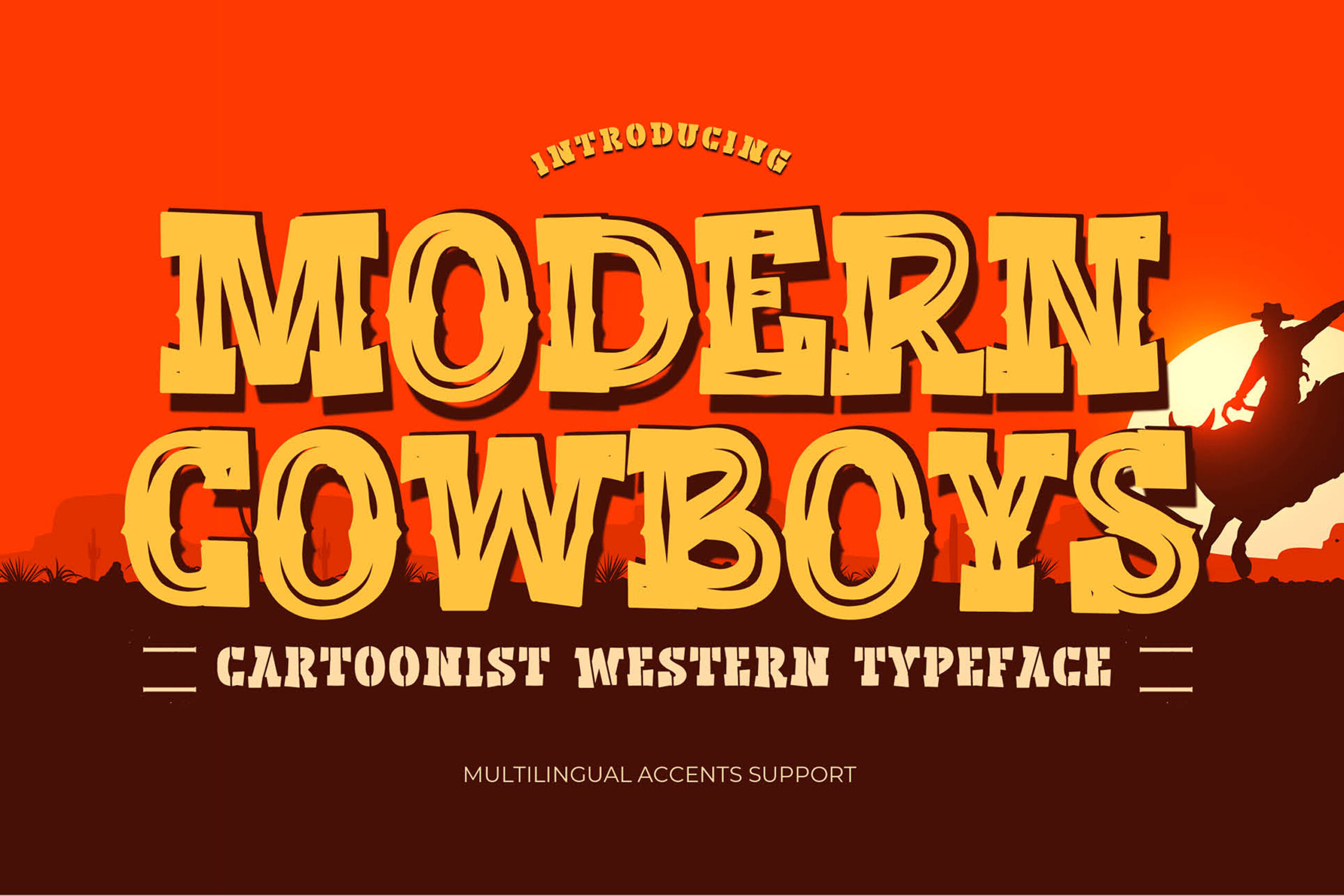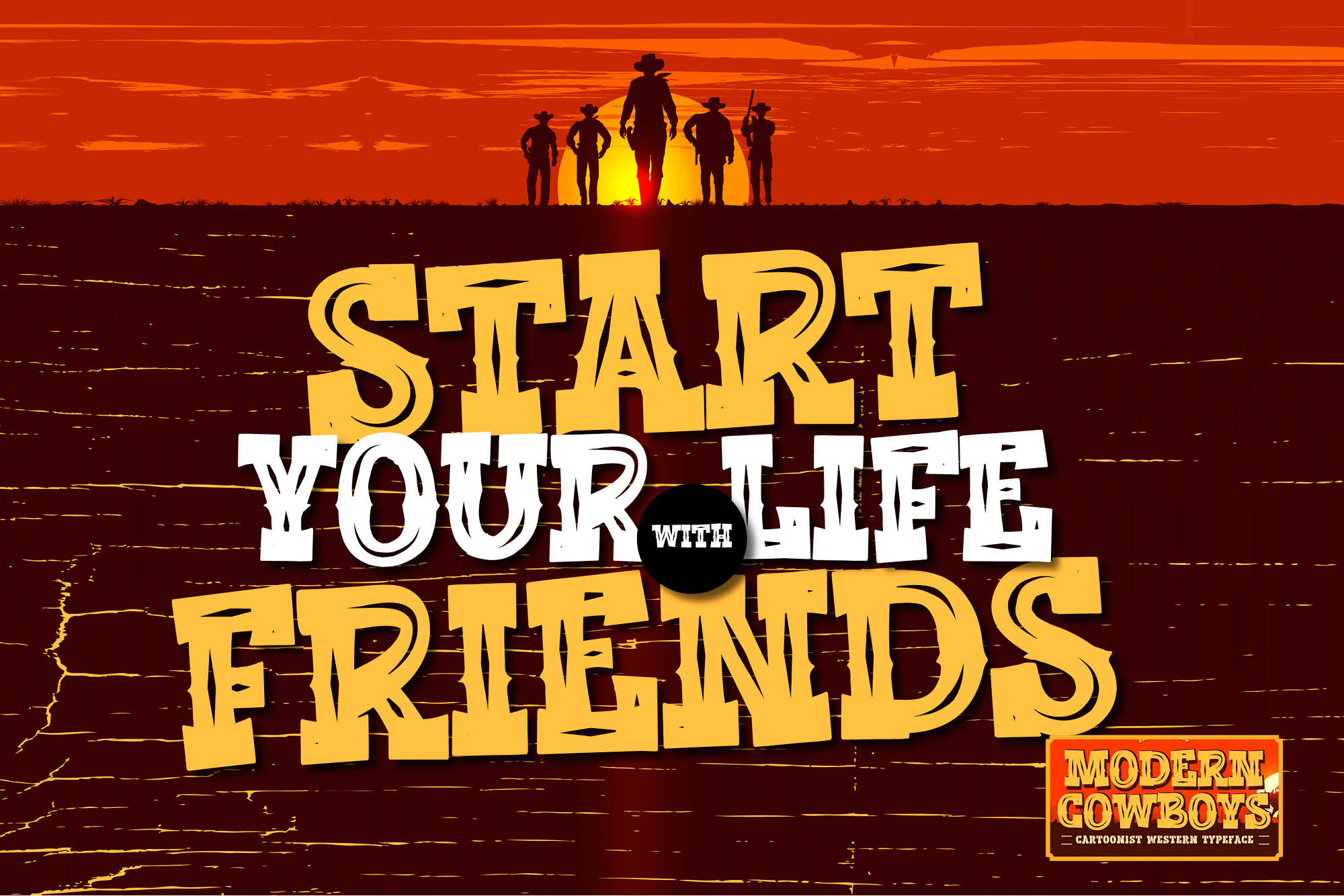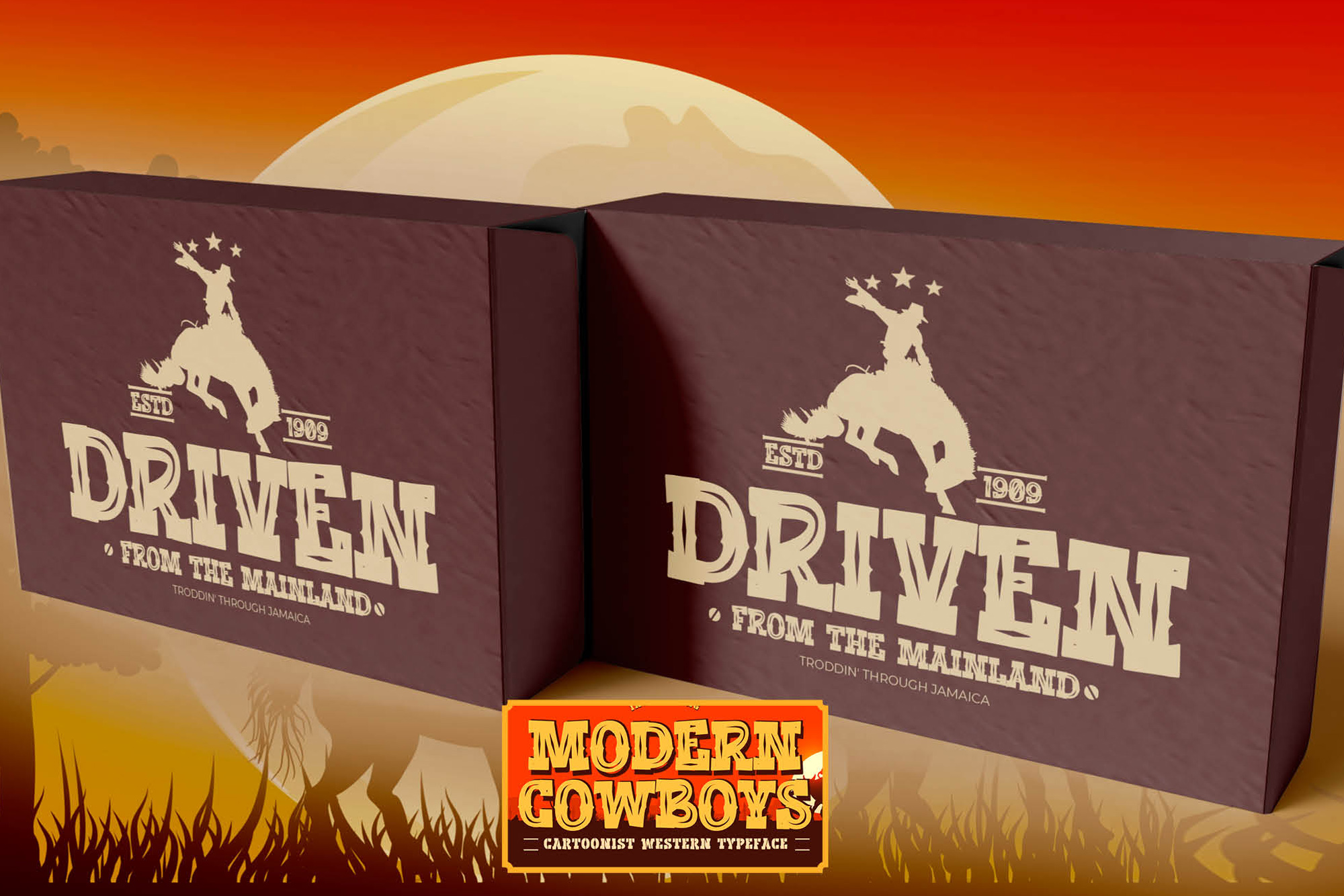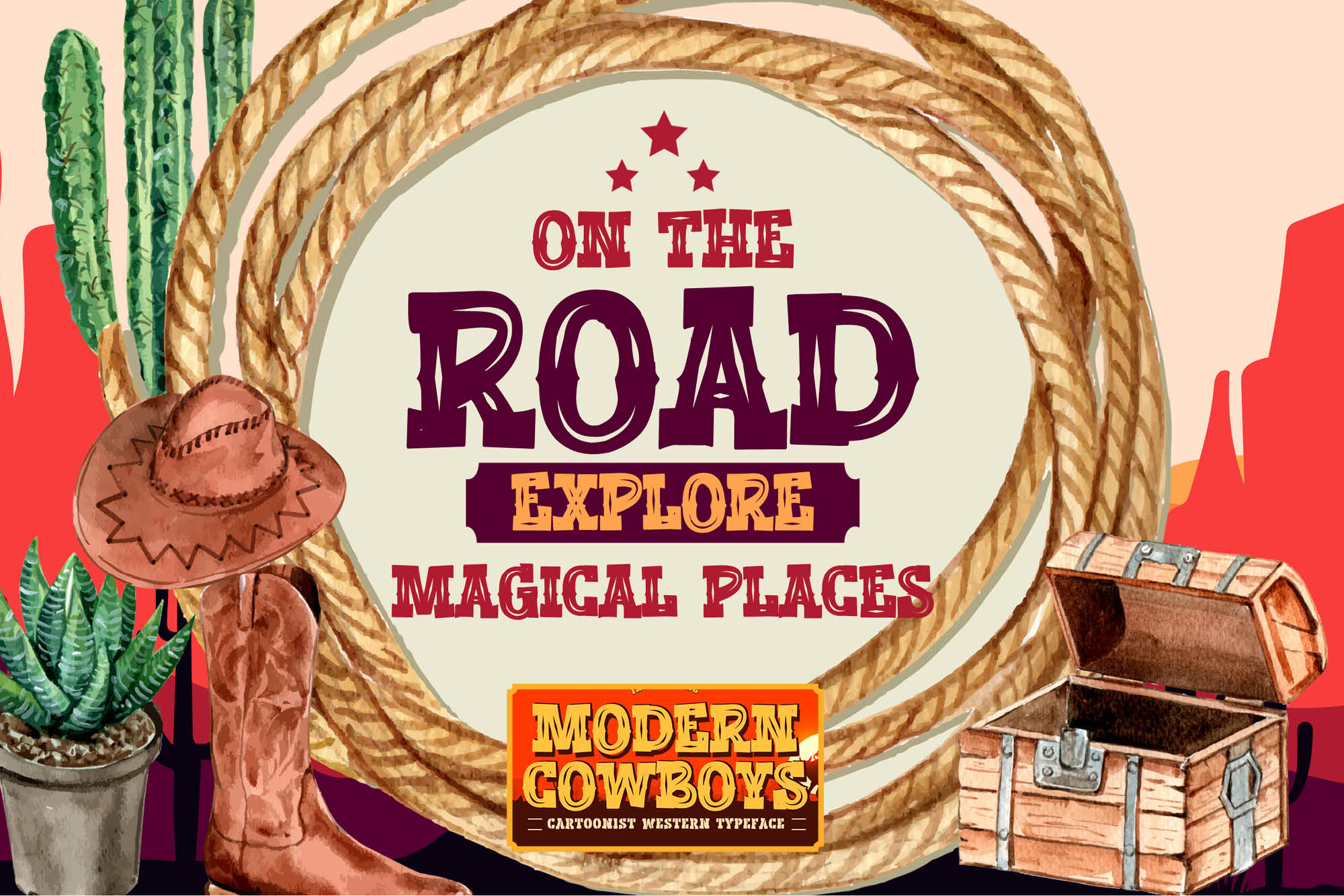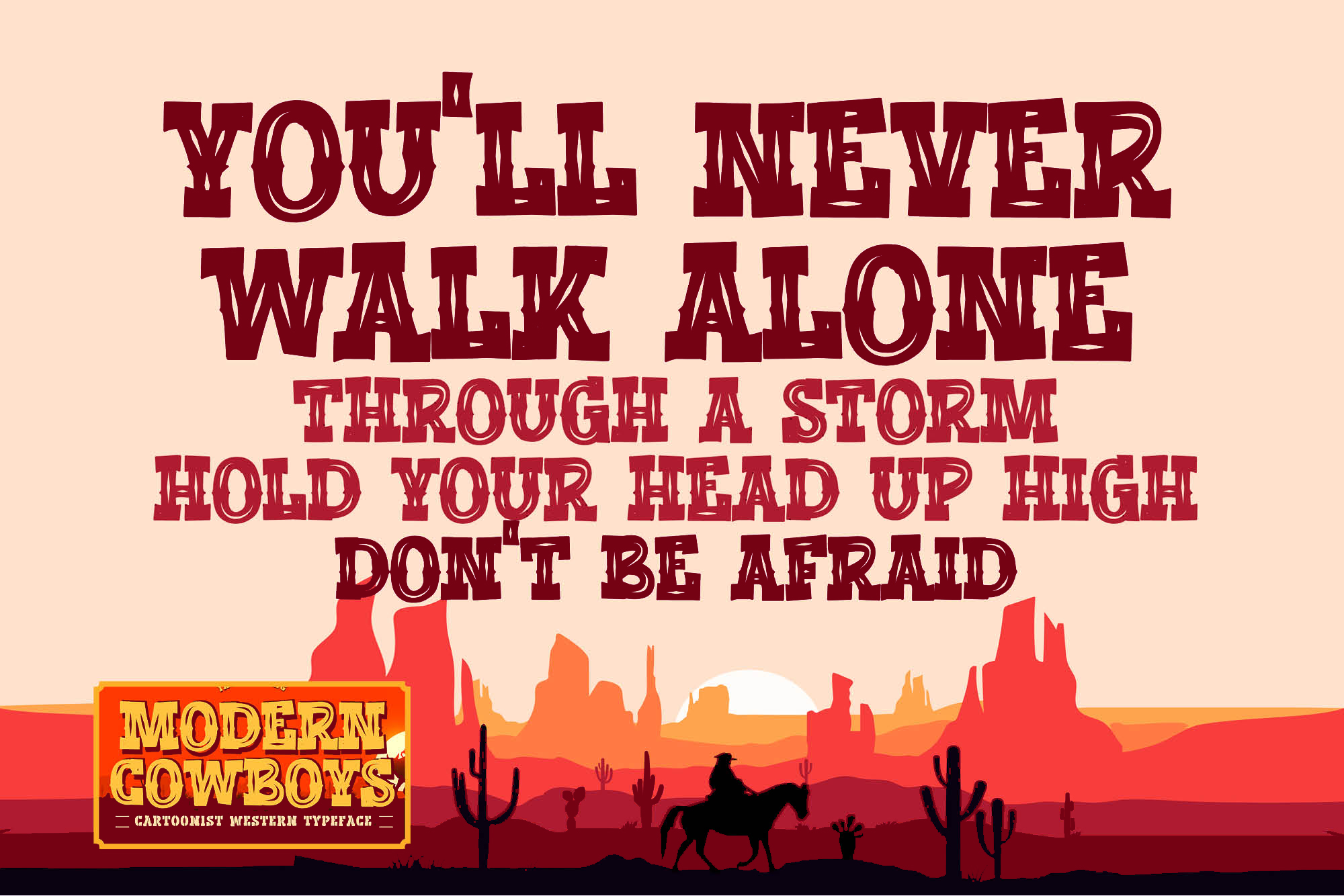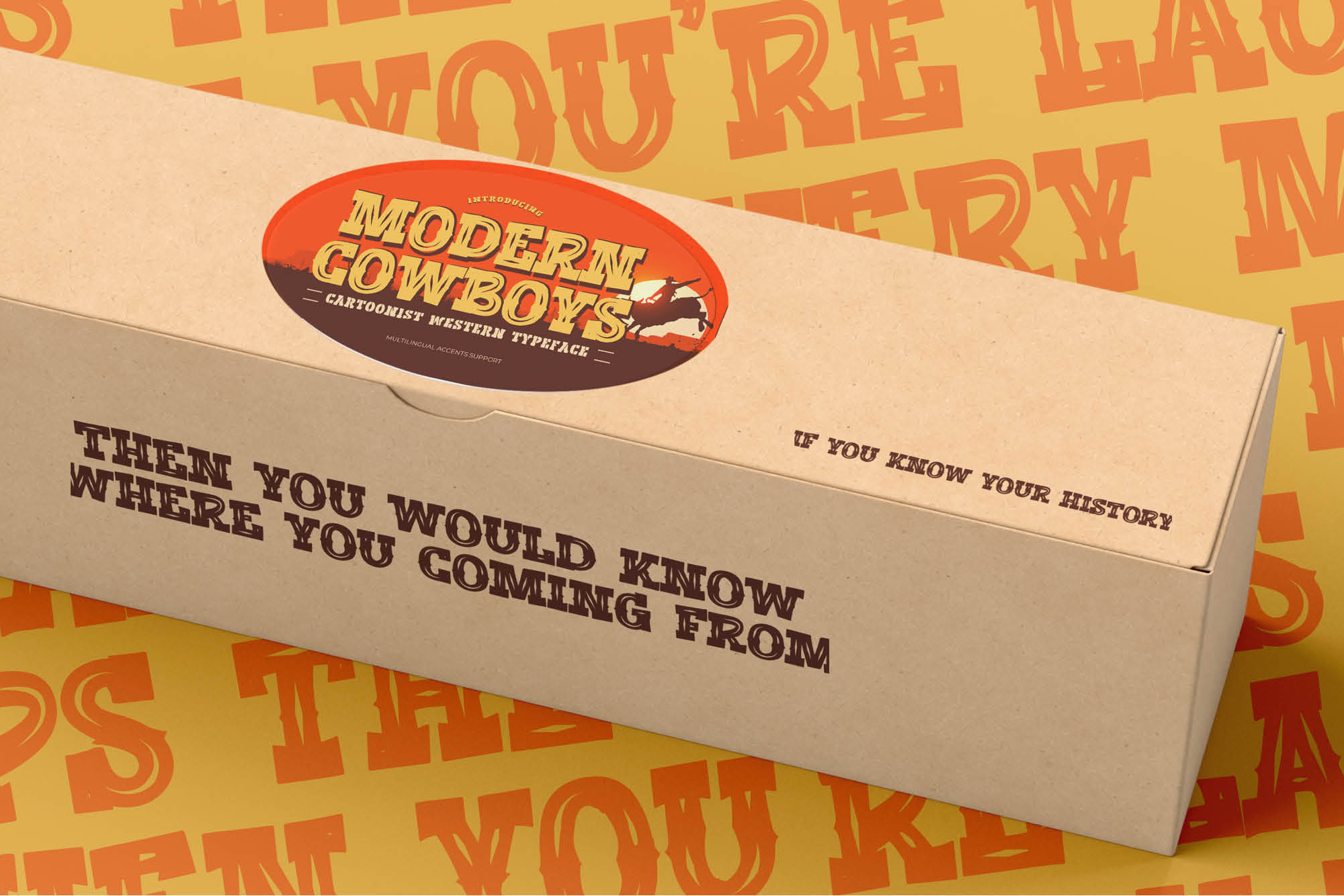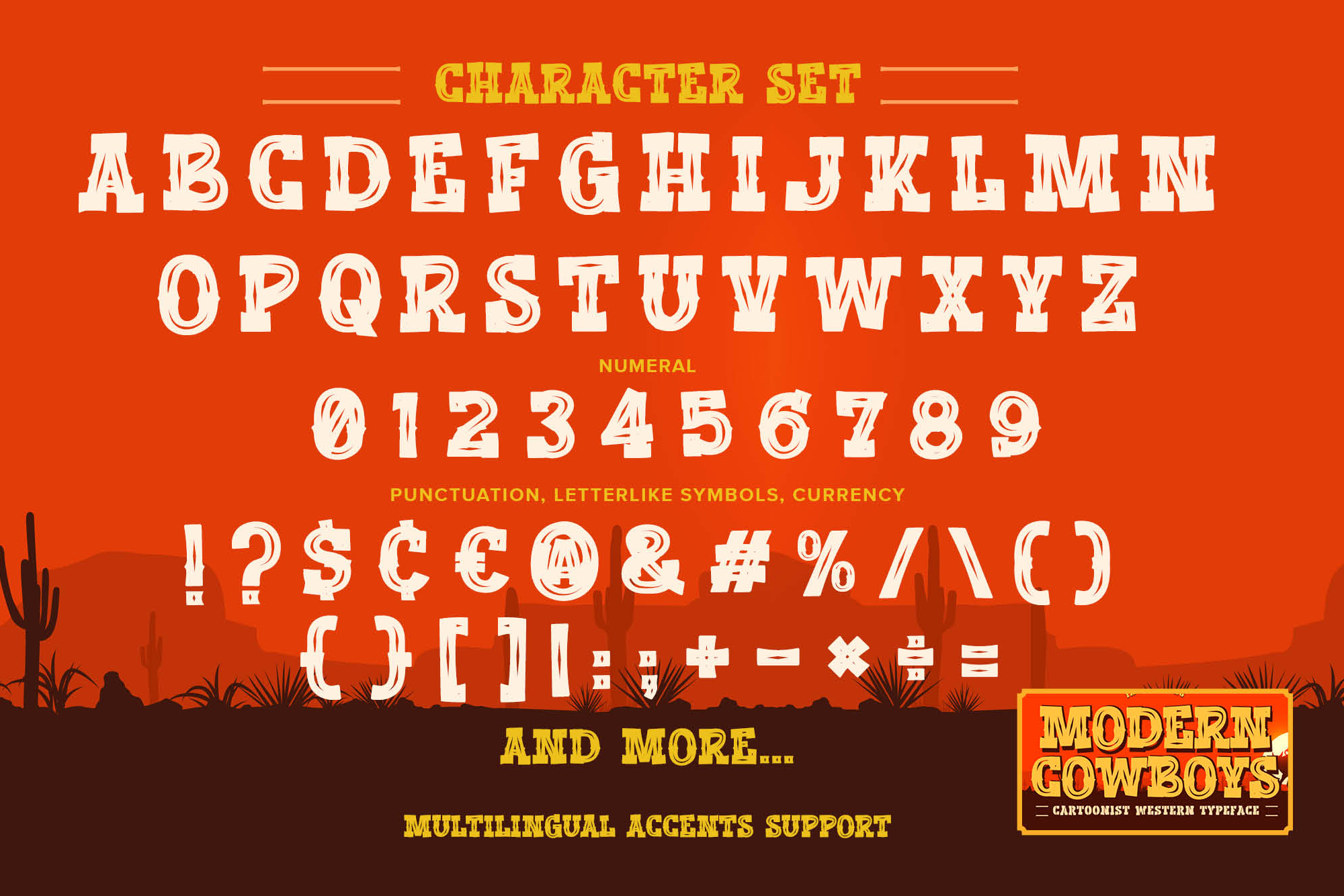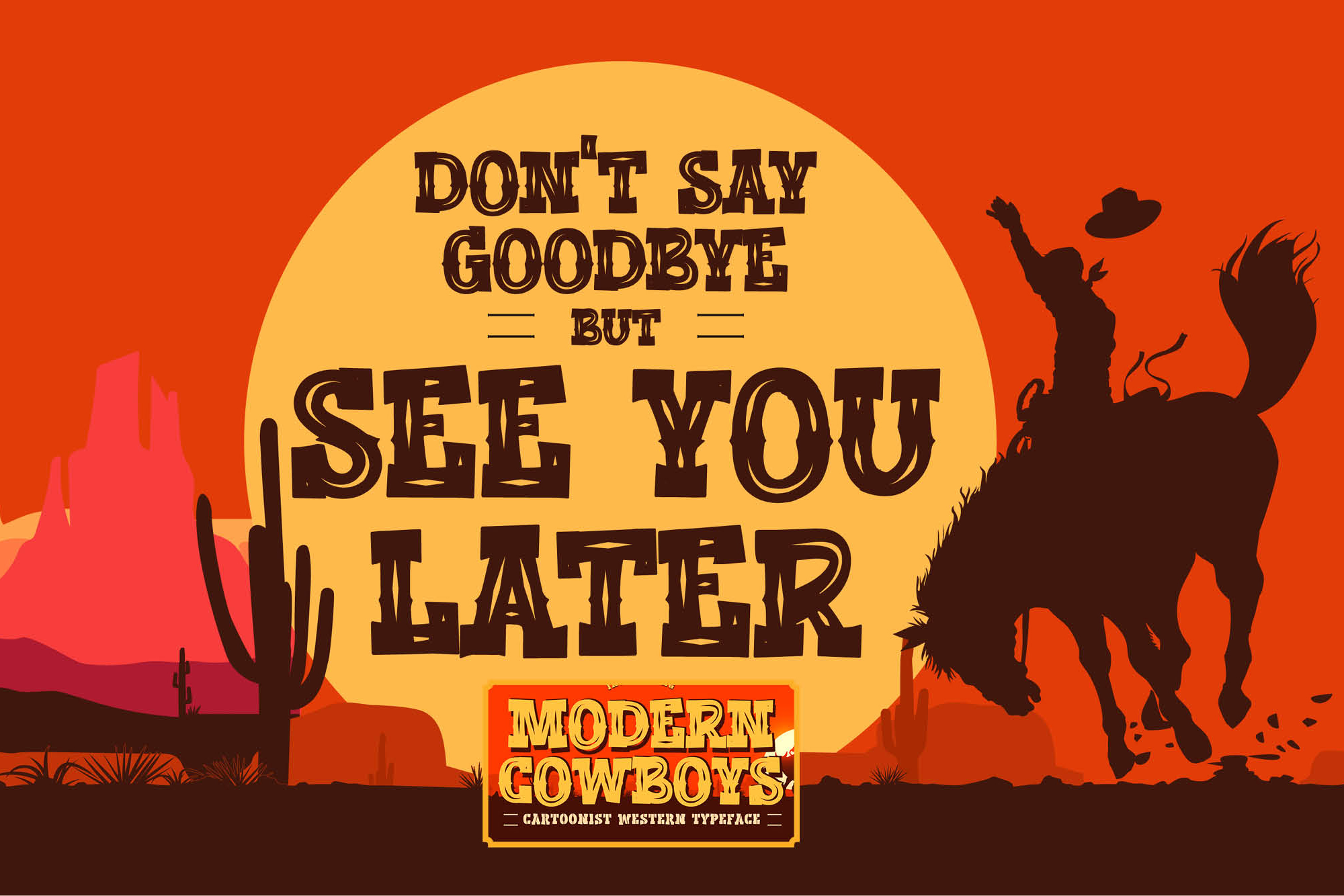
Modern Cowboys – Cartoonist Western Typeface , modern style and dramatic movement that is written casually and quickly.
The best for poster,project , designs look modern, unique and fun. It’s perfect for labels, quotes, posters, DIY projects, branding, packaging, greeting cards, websites, photography overlays, signs, scrapbooking, tags and so much more! That is why Modern Cowboys has a unique cartoon, and retro characteristic more natural look.